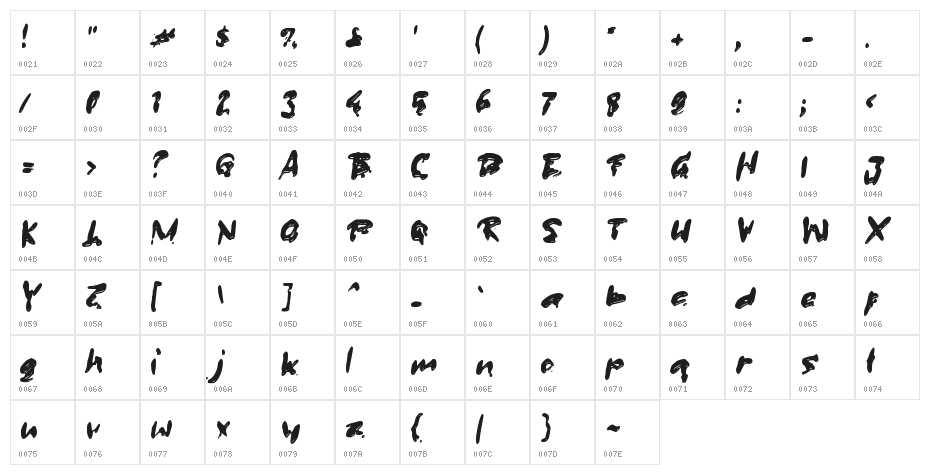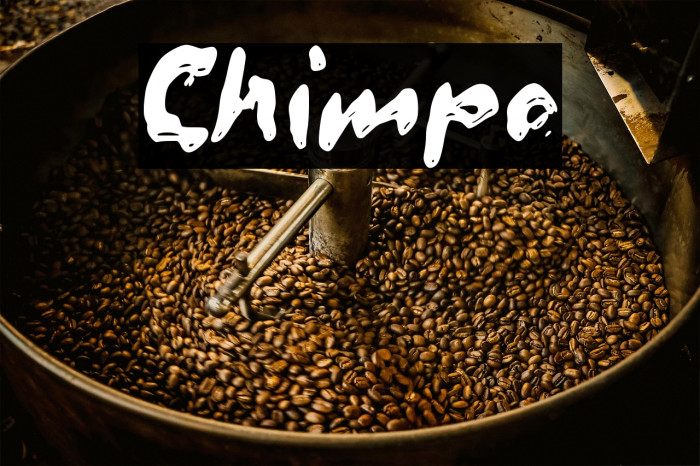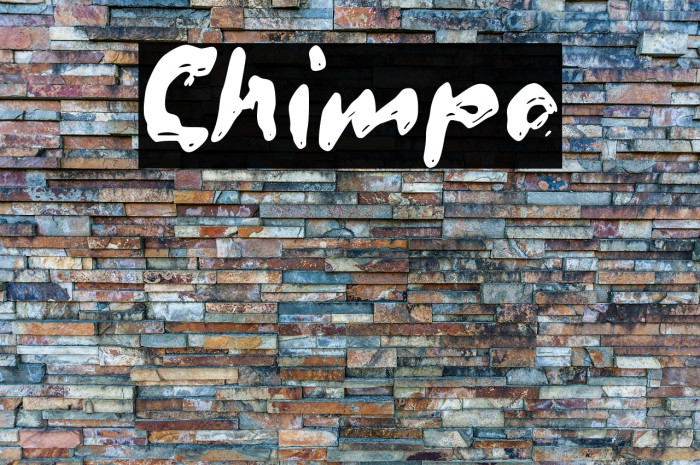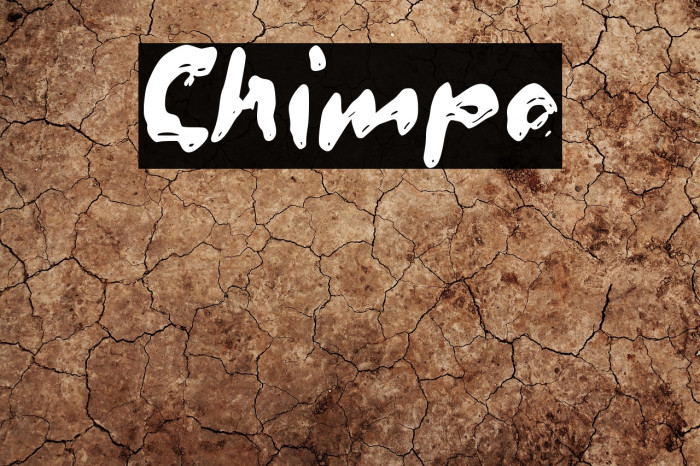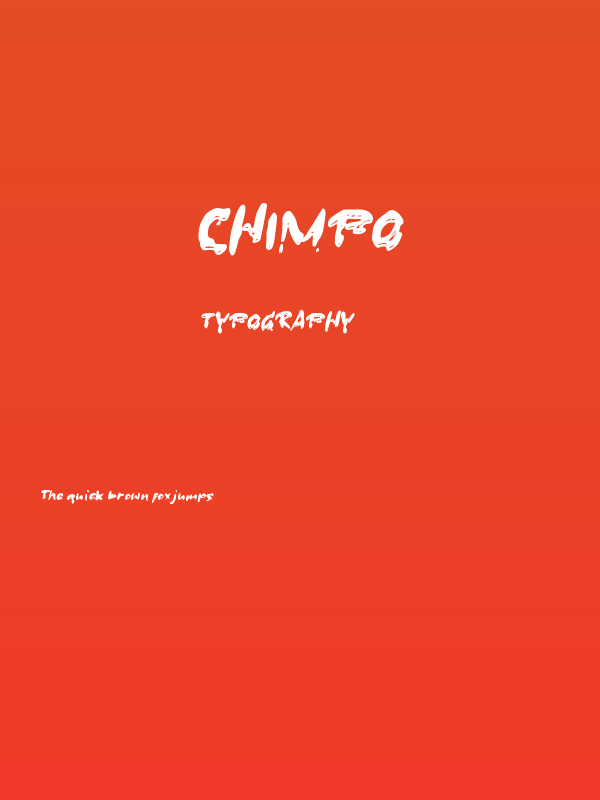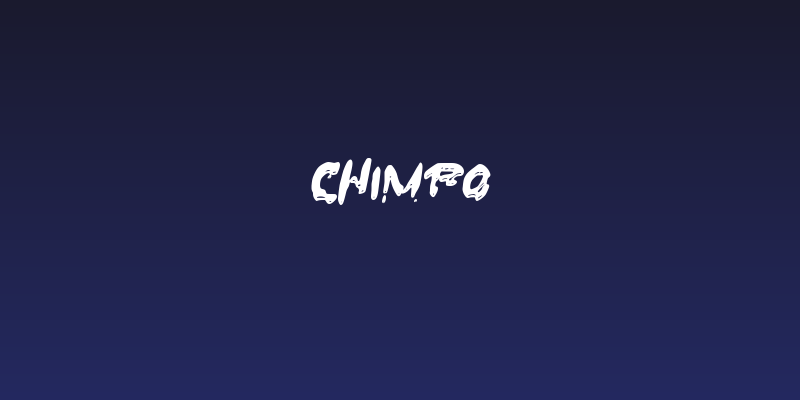
Chimpo Font
Chimpo Description
This font features a bold and expressive style, characterized by its brush-like strokes and dynamic, fluid forms. The letters have an organic feel, with irregular edges and varying thickness that give a sense of movement and energy. The uppercase and lowercase letters maintain a consistent style, while the numbers and special characters integrate seamlessly, enhancing the font's cohesive appearance. The overall design is both artistic and impactful, making it suitable for creative and attention-grabbing applications.
| Proposed Projects | Ideal for artistic projects, posters, branding, and any design requiring a bold, expressive touch. |